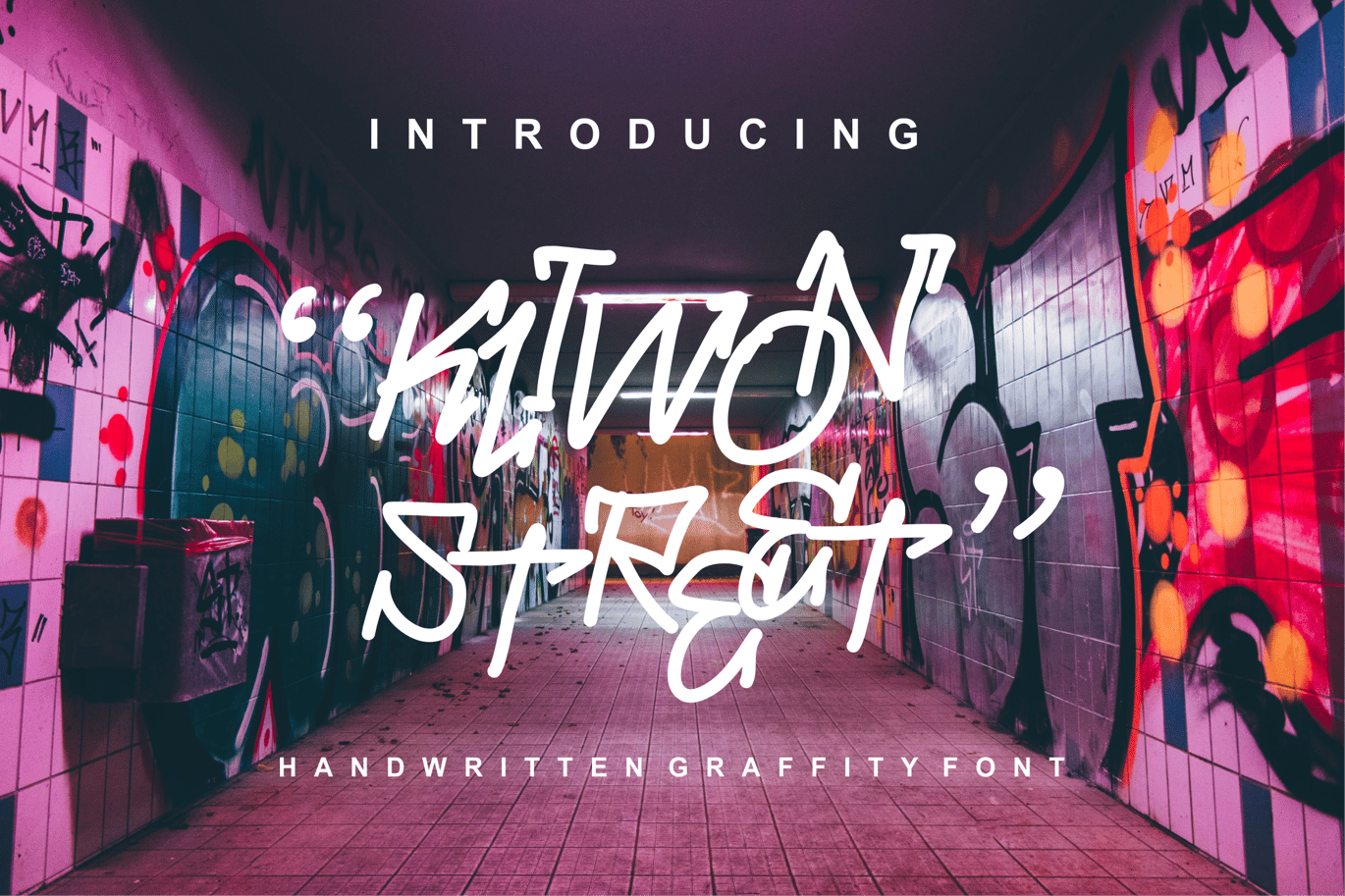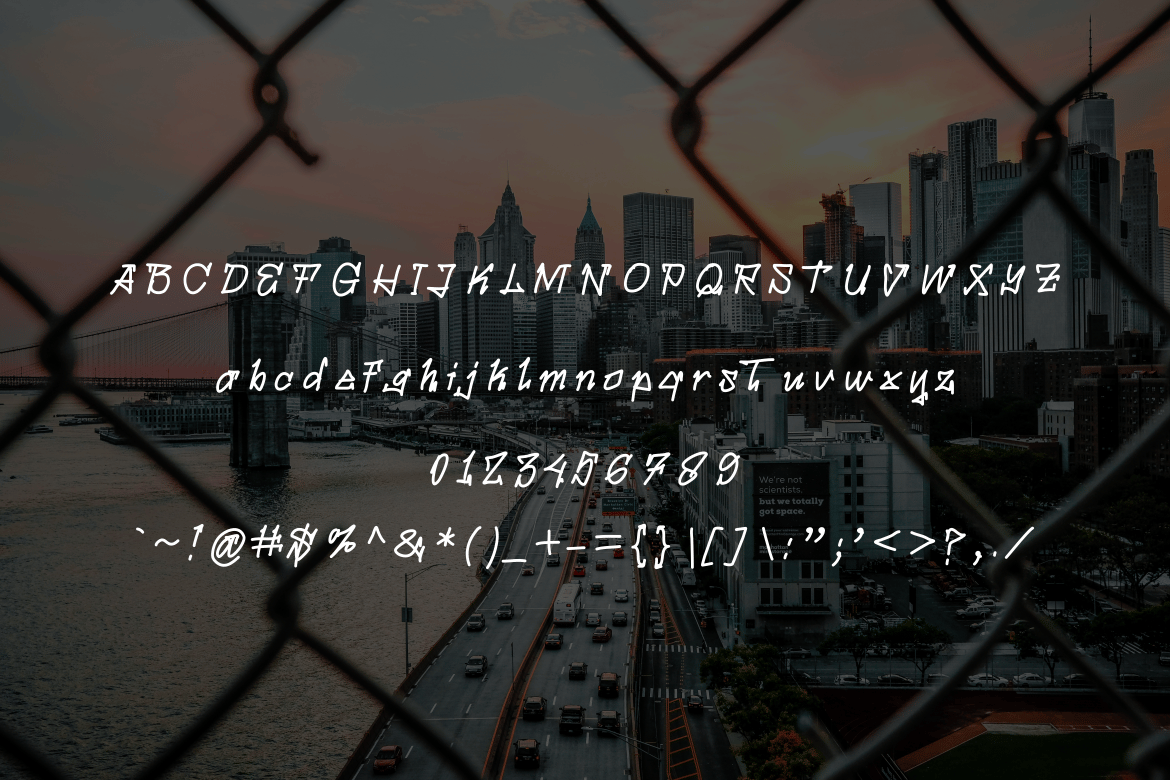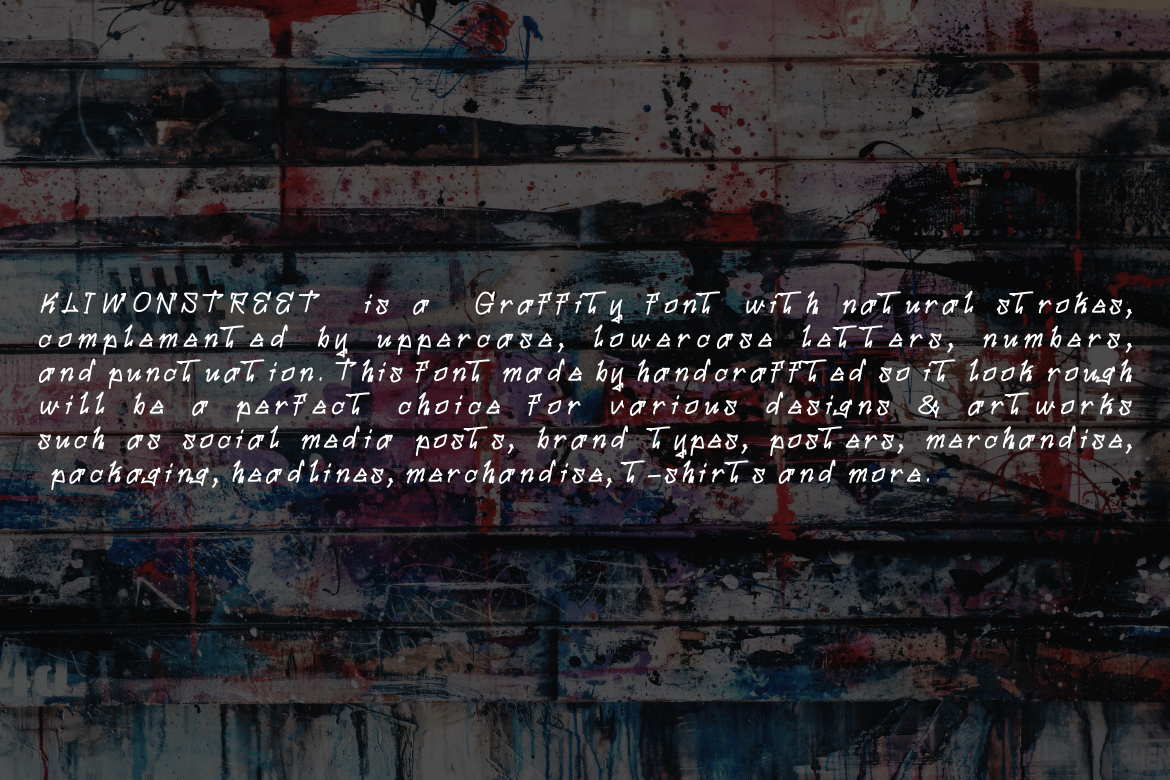
Kliwon Street Graffiti Font
KLIWONSTREET  is a  Graffiti font with natural strokes, complemented by uppercase, lowercase letters, numbers,
and punctuation. This font made by handcraffted so it look roughwill be a perfect choice for various designs & artworks
such as social media posts, brand types, posters, merchandise, packaging, headlines, merchandise, t-shirts and more.